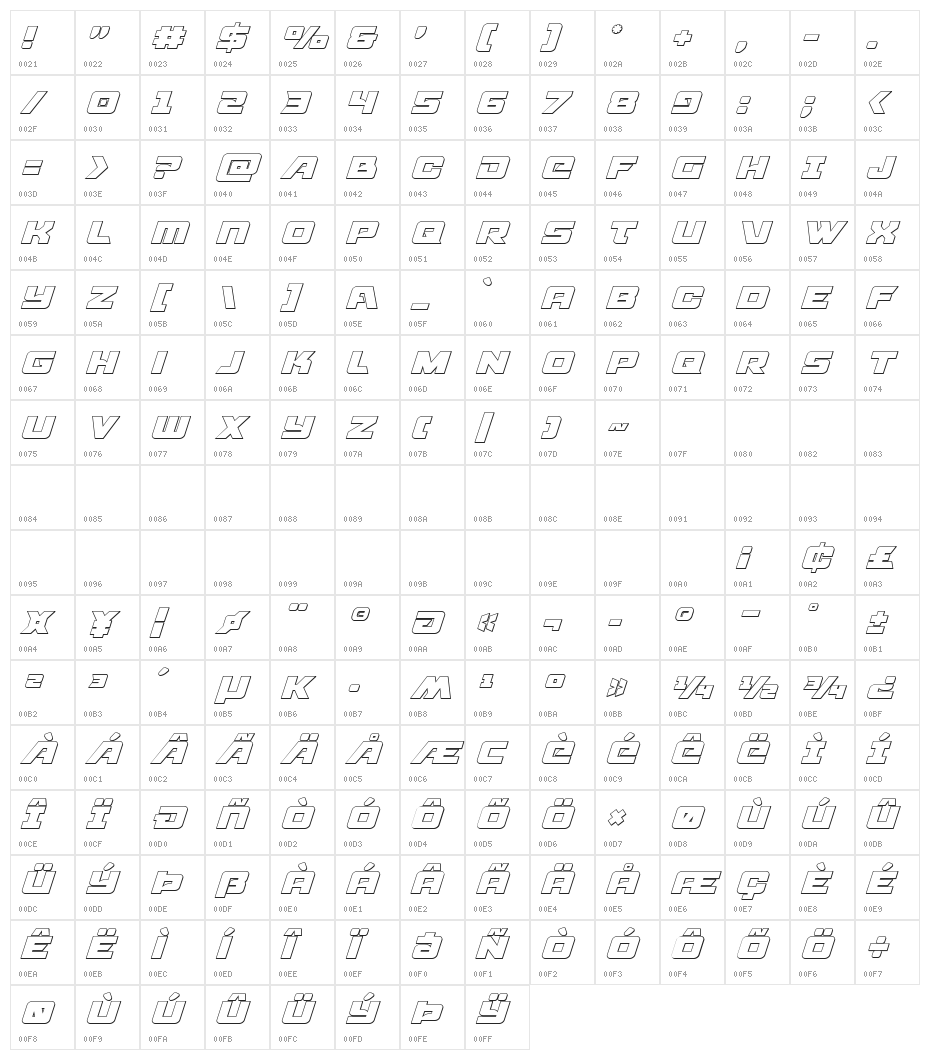
Aircruiser Outline Italic Font
This font features a bold, italicized outline style that gives it a dynamic and futuristic appearance. The characters are designed with a distinct slant, enhancing the sense of motion and speed. The outline effect provides a unique visual impact, making it stand out in any design. The uppercase and lowercase letters maintain a consistent style, with sharp angles and clean lines. The numerals and special characters are crafted to match the overall aesthetic, ensuring a cohesive look across all text elements. This font is ideal for projects that require a modern and edgy feel.